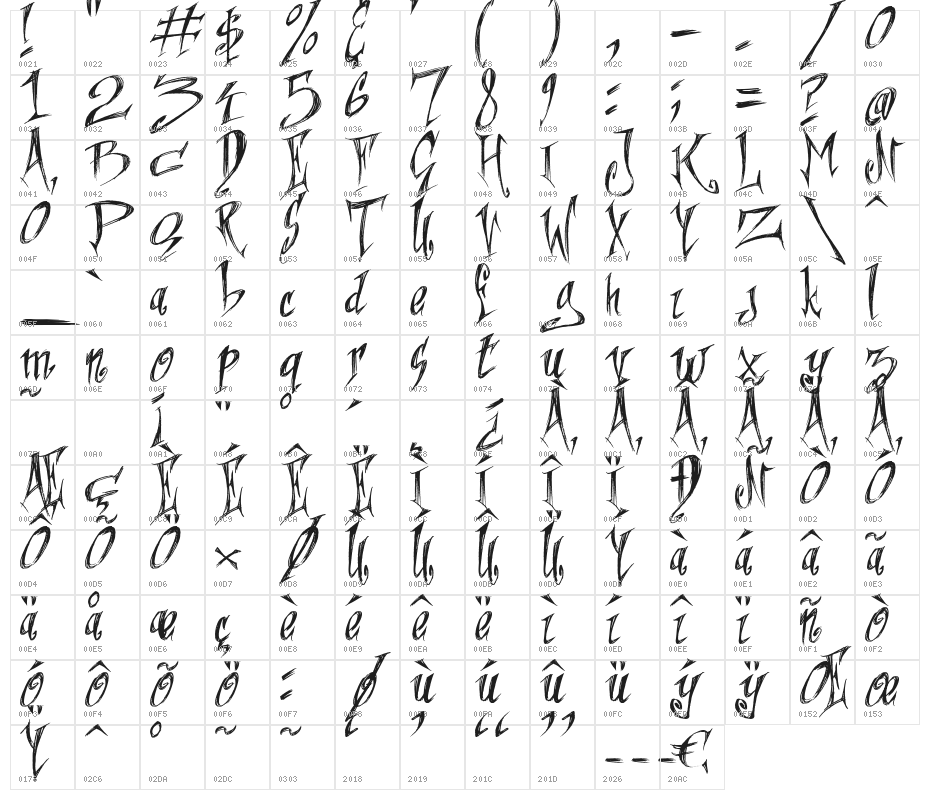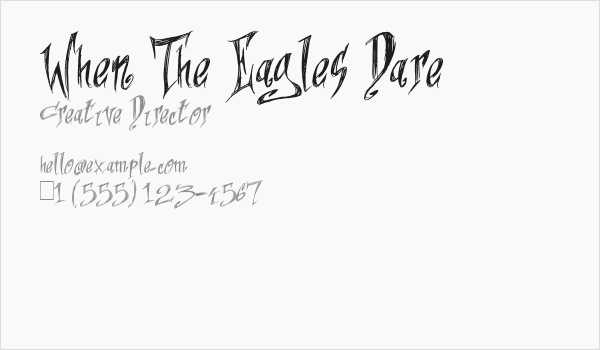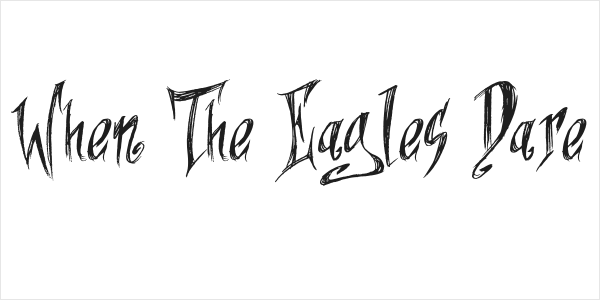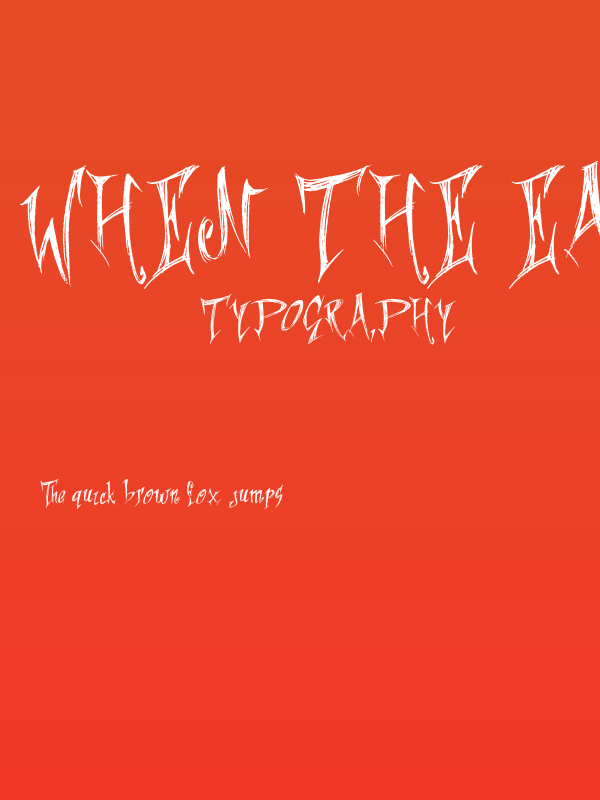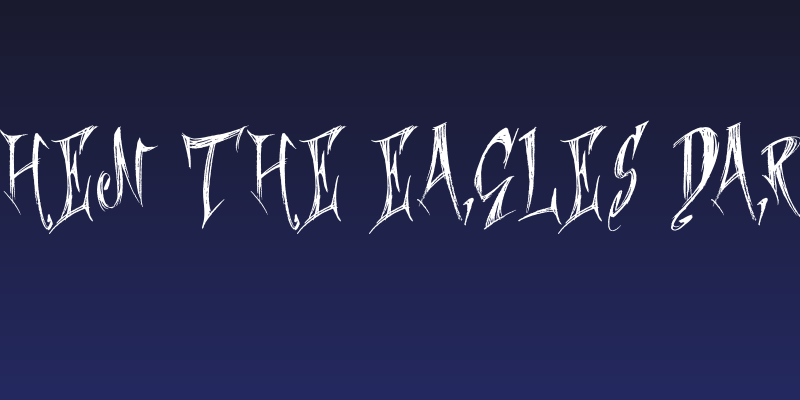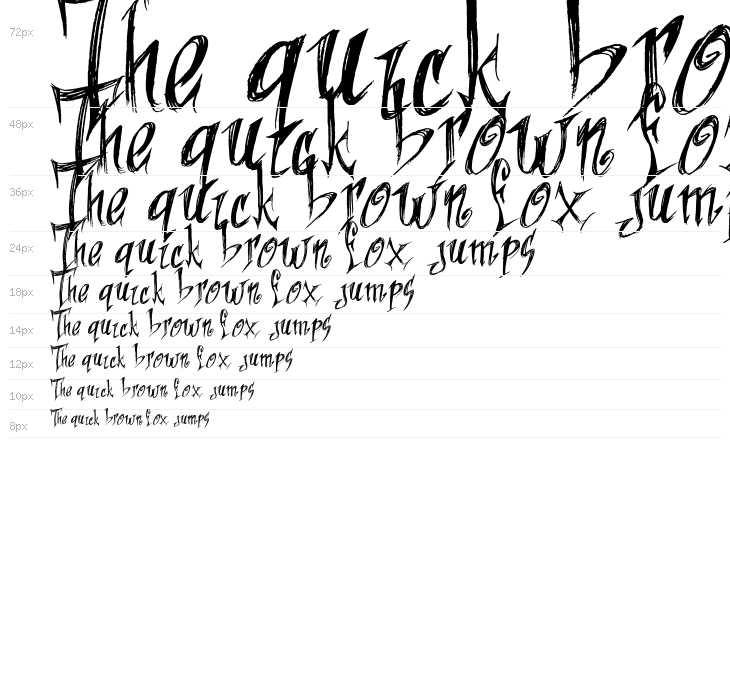
When The Eagles Dare Font
When The Eagles Dare Description
This font exhibits a dynamic and edgy style, characterized by sharp, angular strokes and a hand-drawn appearance. The uppercase letters are bold and dramatic, with exaggerated curves and pointed edges, creating a sense of movement and energy. The lowercase letters maintain this energetic style, with a slightly more fluid and connected form. Numbers and special characters follow the same aesthetic, contributing to a cohesive and striking visual impact. The overall design suggests a rebellious and adventurous spirit, making it ideal for projects that require a bold statement.
| Proposed Projects | Ideal for album covers, movie posters, skateboarding brands, or any project needing a bold, rebellious aesthetic. |